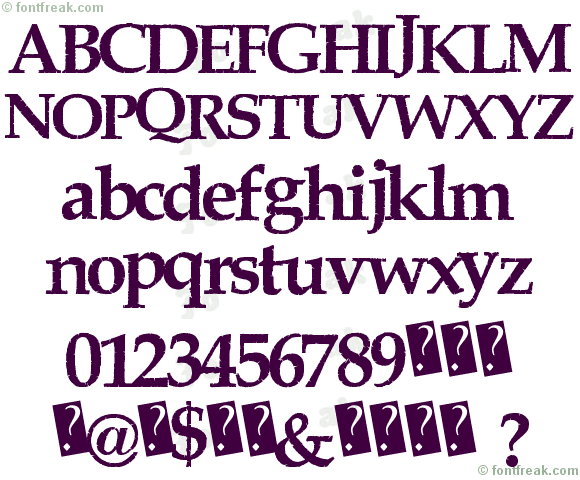
PiratesBay
PiratesBay is a distinctive display font designed by XEROGRAPHER FONTS, released in 2012 under a freeware license. This font falls into the decorative category, characterized by its bold and rugged appearance that evokes a sense of adventure and nostalgia reminiscent of pirate lore. The letters feature a varied stroke weight, with a strong contrast that draws attention, making it ideal for eye-catching designs. The irregularities and rough edges add a handmade touch, giving the font a unique personality that sets it apart from standard typefaces.
Visual characteristics of the PiratesBay font include pronounced serifs and a slightly distressed texture that enhances its adventurous theme. The spacing between letters is generous, ensuring readability while maintaining an organic feel. This combination of features makes the font particularly versatile for various creative applications.
PiratesBay is particularly suited for use cases such as movie posters, especially for adventure or fantasy genres, where its dramatic flair can capture attention. It works wonderfully for themed restaurant menus, especially those with a nautical or pirate-inspired theme, adding a fun element to the dining experience. Additionally, it can be effectively used on merchandise like t-shirts or promotional materials for events and festivals. Graphic designers and small business owners looking to create a memorable brand identity will find this font beneficial.
Overall, the PiratesBay font stands out due to its ability to convey a sense of adventure and excitement while maintaining clarity and legibility. Its distinctive style and unique characteristics make it a valuable addition to any designer's toolkit. For those interested, the PiratesBay font free download offers an opportunity to experiment with this captivating typeface in various creative projects.